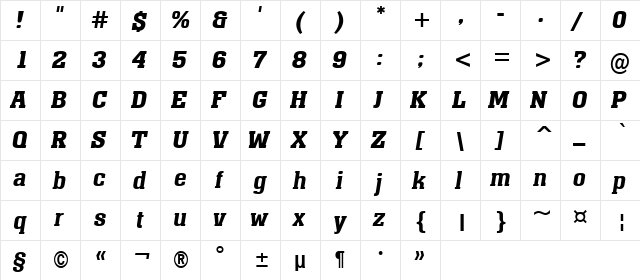
a_Monumento DemiBoldItalic
Design Context for a_Monumento Typeface
a_Monumento offers clean, dependable letterforms without strong stylistic allegiance, making it a practical choice for designers who need flexibility. The dynamic lean of this cut emphasises speed and emphasis in any layout. Its bold stroke weight gives it real presence on the page.
Pro Tip: Use a_Monumento for emphasis, pull quotes, and subheadings where its slanted energy can add rhythm to the layout.